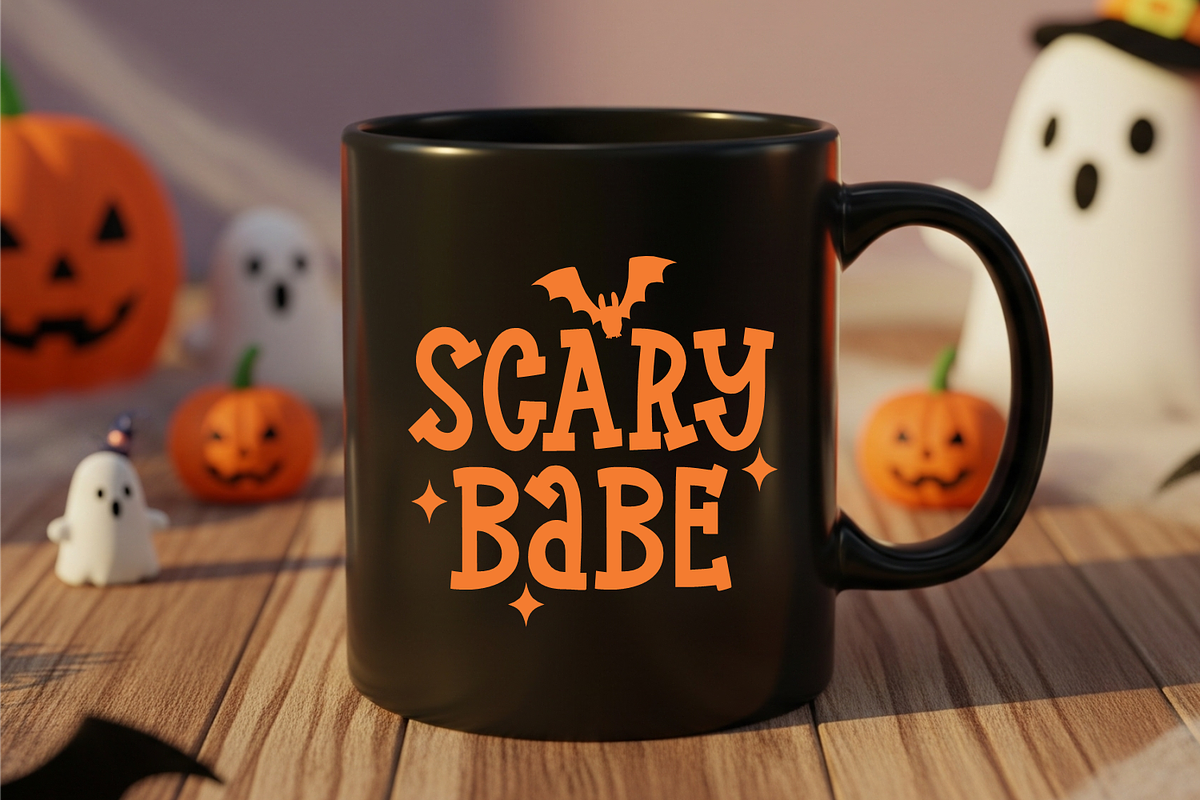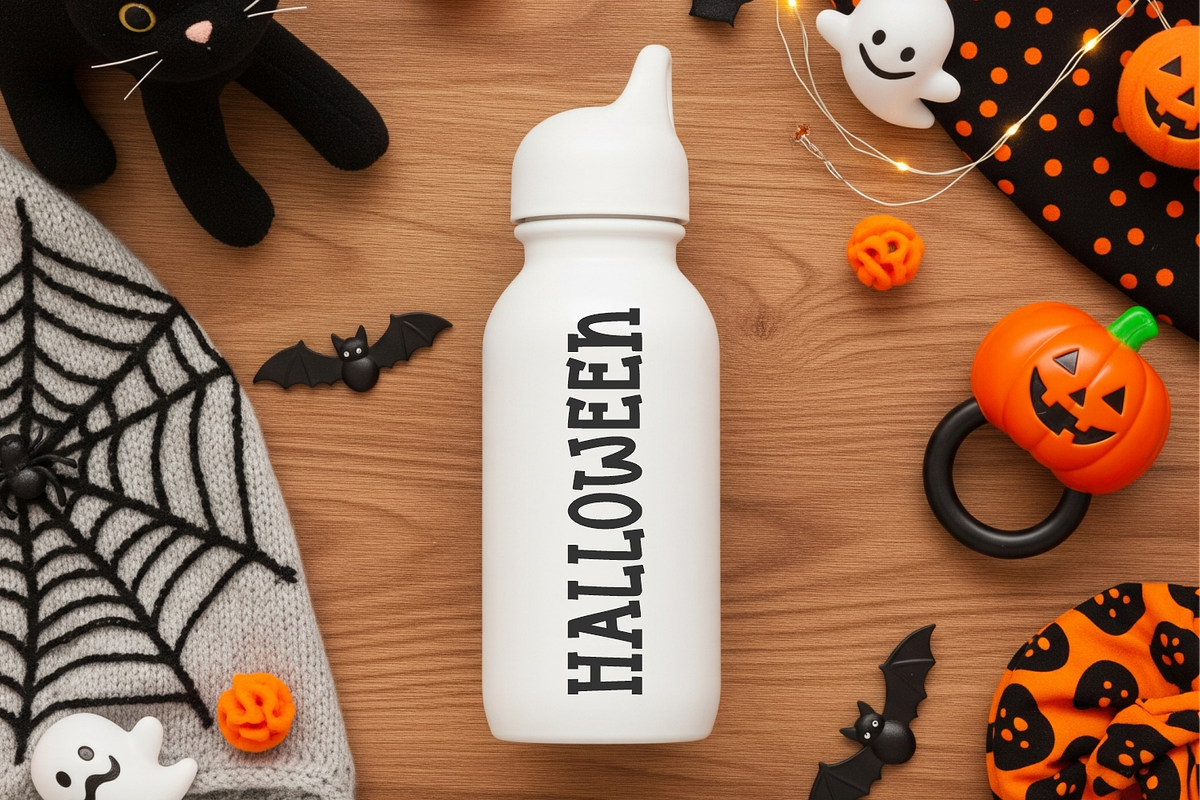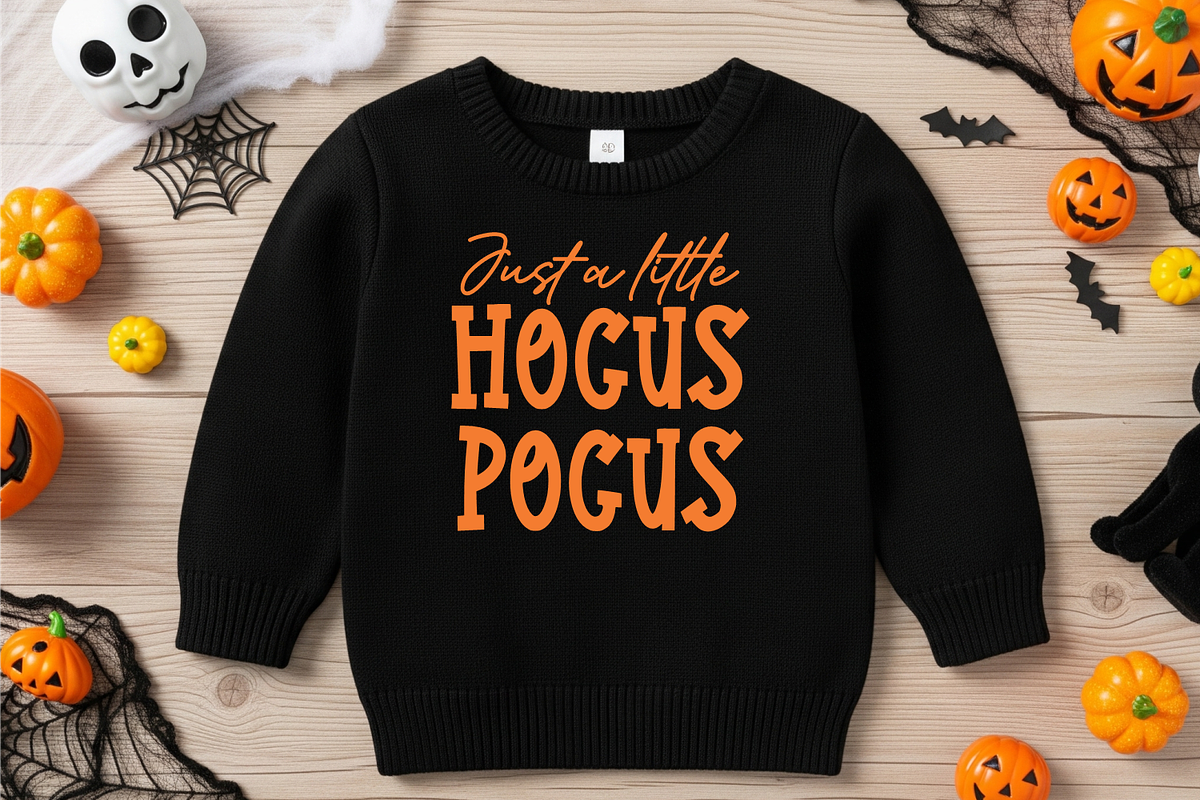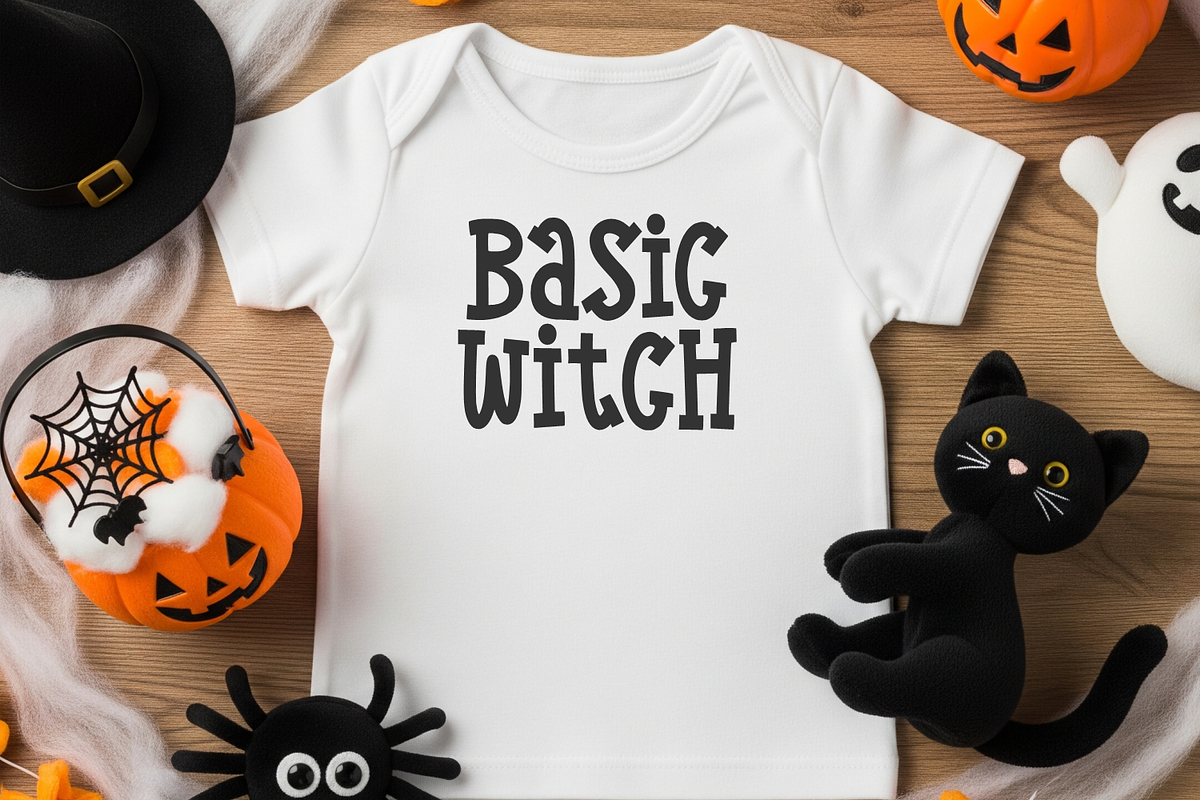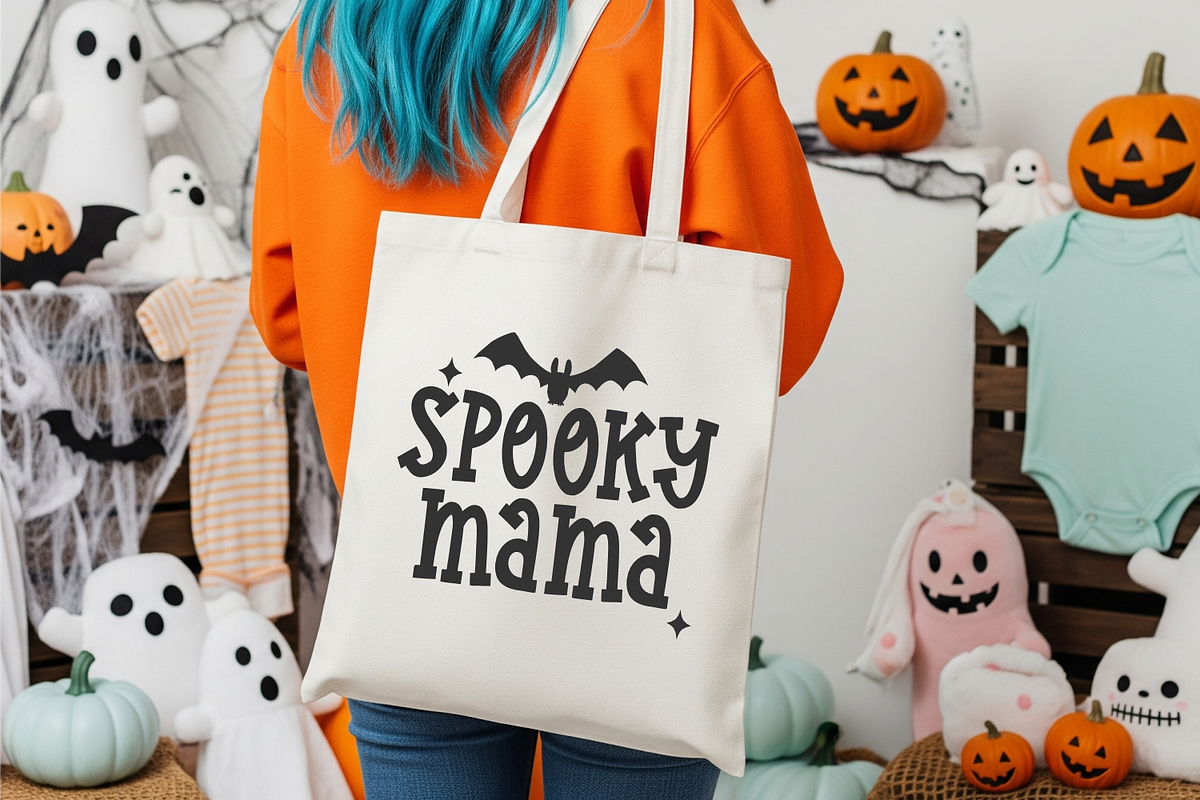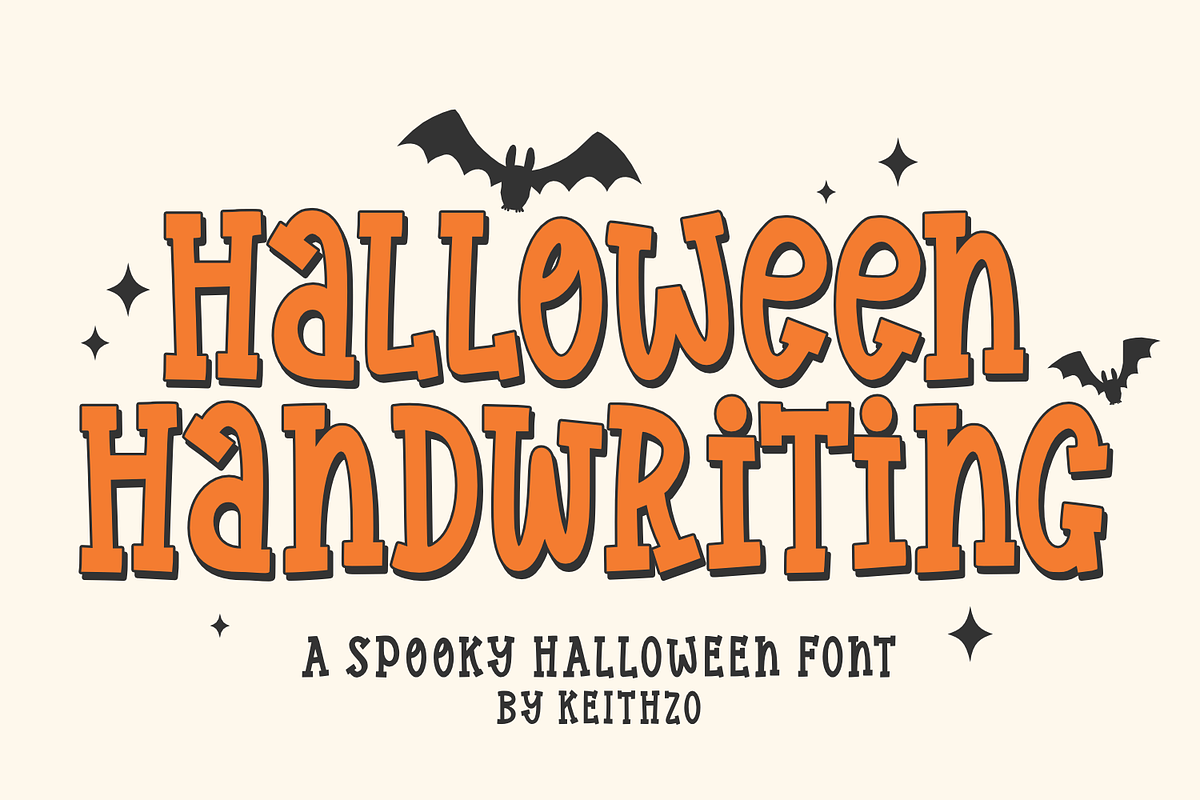
Halloween Handwriting
Experience the thrill of the spooky season with the Halloween Handwriting font, a unique display serif perfect for all your eerie creative needs. This distinctive font infuses a ghoulish aesthetic into various personal and commercial projects, making it just right for a Halloween-themed t-shirt, a haunting mug, or a chilling tumbler. It’s even an ideal choice for adding an element of fright to tote bags and pillows. Halloween Handwriting truly shines in the publishing world, imbuing magazines with an uncanny aura. It is also an impressive add-on for making Halloween posters come alive or adding a touch of the macabre to your crafts. Unleash your dark creativity with this incredibly versatile Halloween Handwriting font.